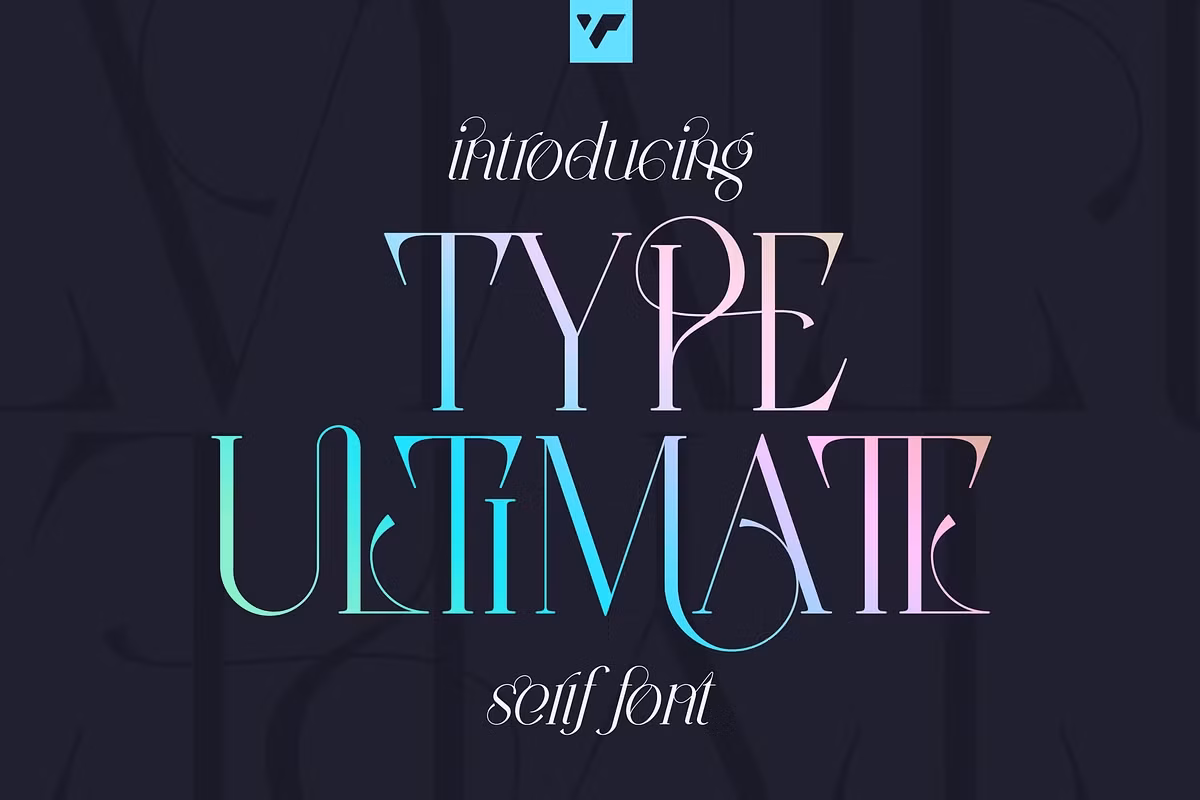
Type Ultimate - Serif Logo Font Free Download is a powerful and sophisticated serif typeface designed specifically for creating standout logos and branding. With its strong, classic letterforms and refined details, this font is ideal for building elegant and memorable logos, professional branding, and high-end design projects.
The timeless structure of Type Ultimate combines tradition with modern elegance, making it versatile for a variety of design purposes, including luxury brands, editorial layouts, and upscale marketing materials. Whether you’re creating a corporate identity or a stylish product logo, this font provides the perfect foundation for a bold, memorable visual identity.